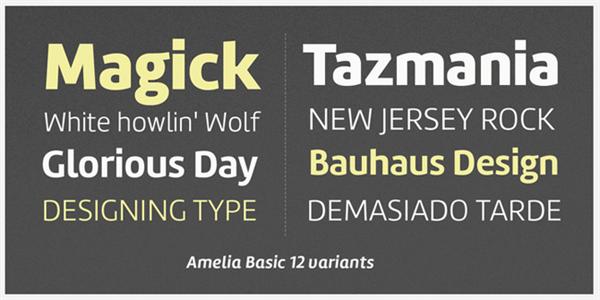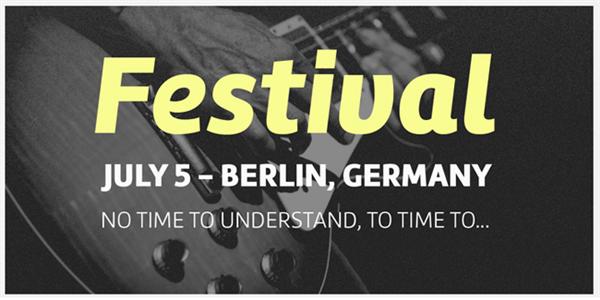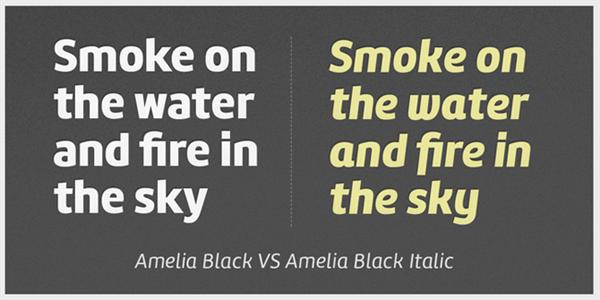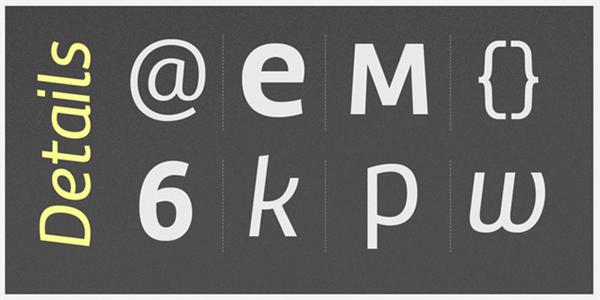
Another awesome type deal brought to you by MightyDeals. Amelia Basic font is a great choice for anyone looking for a sans-serif that doesn’t look heartless.